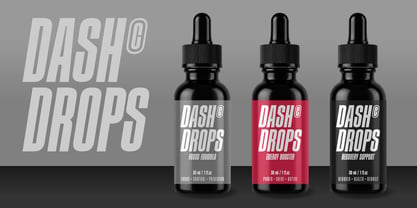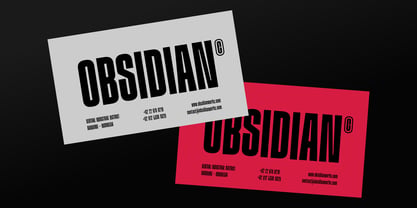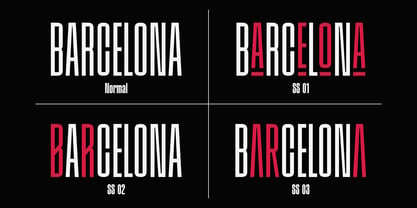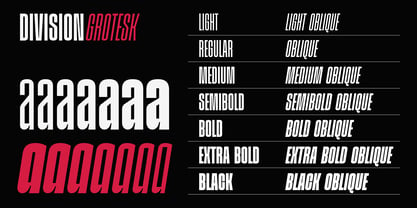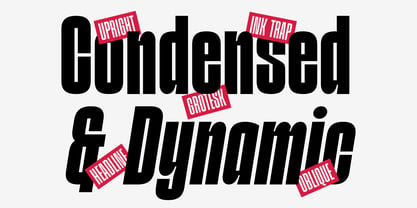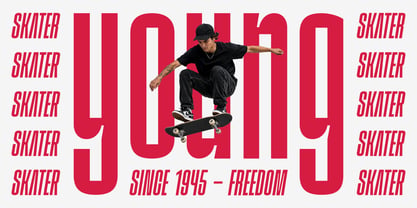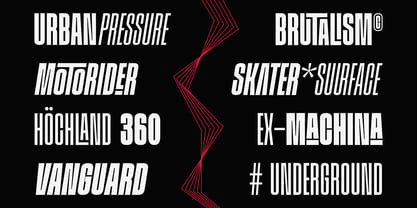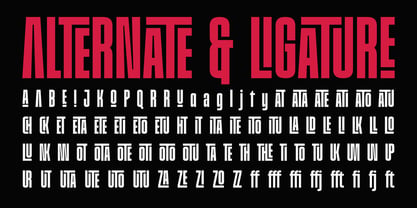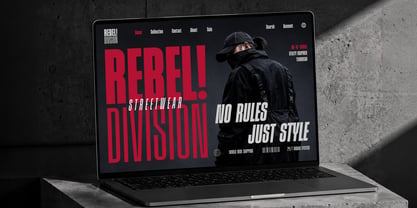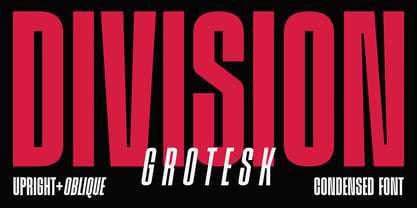
Division Grotesk
Division Grotesk is a bold condensed display typeface designed to dominate headlines with confidence and intensity. Built with strong vertical proportions, sharp geometric structures, and a modern industrial attitude, this font delivers a powerful visual impact for posters, branding, sports graphics, streetwear, editorial layouts, packaging, and cinematic titles.
The family includes 14 styles with both Upright and Oblique versions, giving you the flexibility to create dynamic compositions, energetic layouts, and futuristic visual identities.
Perfect For / Use Case: Headlines & Large Displays, Strong Condensed Display Design, Posters &, Editorials, Streetwear Branding, Sports & Racing Graphics, Movie Titles, Album Covers, Packaging, Design, Social Media Content, Modern Logo & Identity Systems.